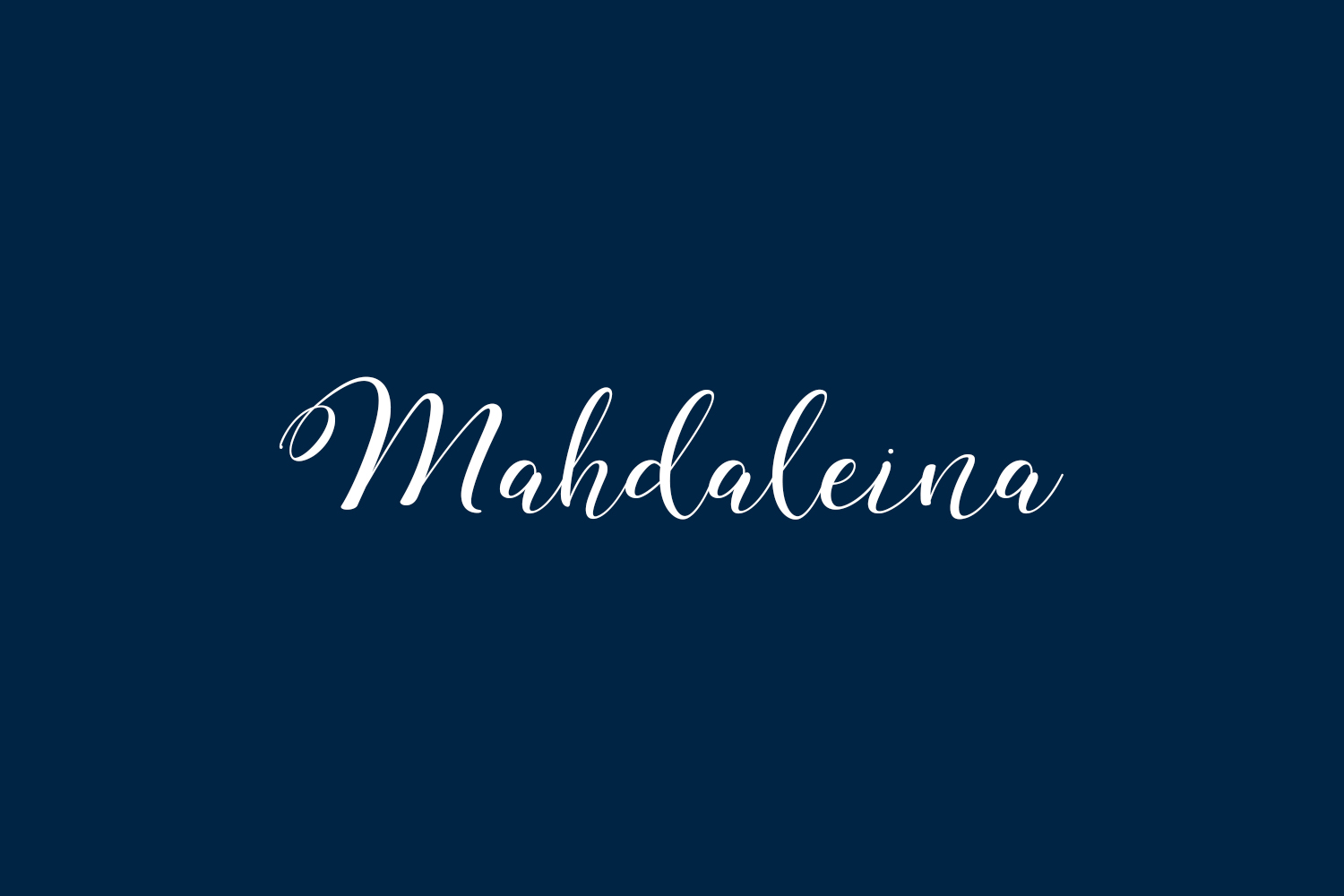
Mahdaleina Font Free Font is a modern calligraphy font tha thas been carefully crafted to look smooth and work well in many different personal-style projects. Mahdaleina Font Free Font was designed by Thirtypath and is free for personal use only. Please purchase the full version for commercial use.